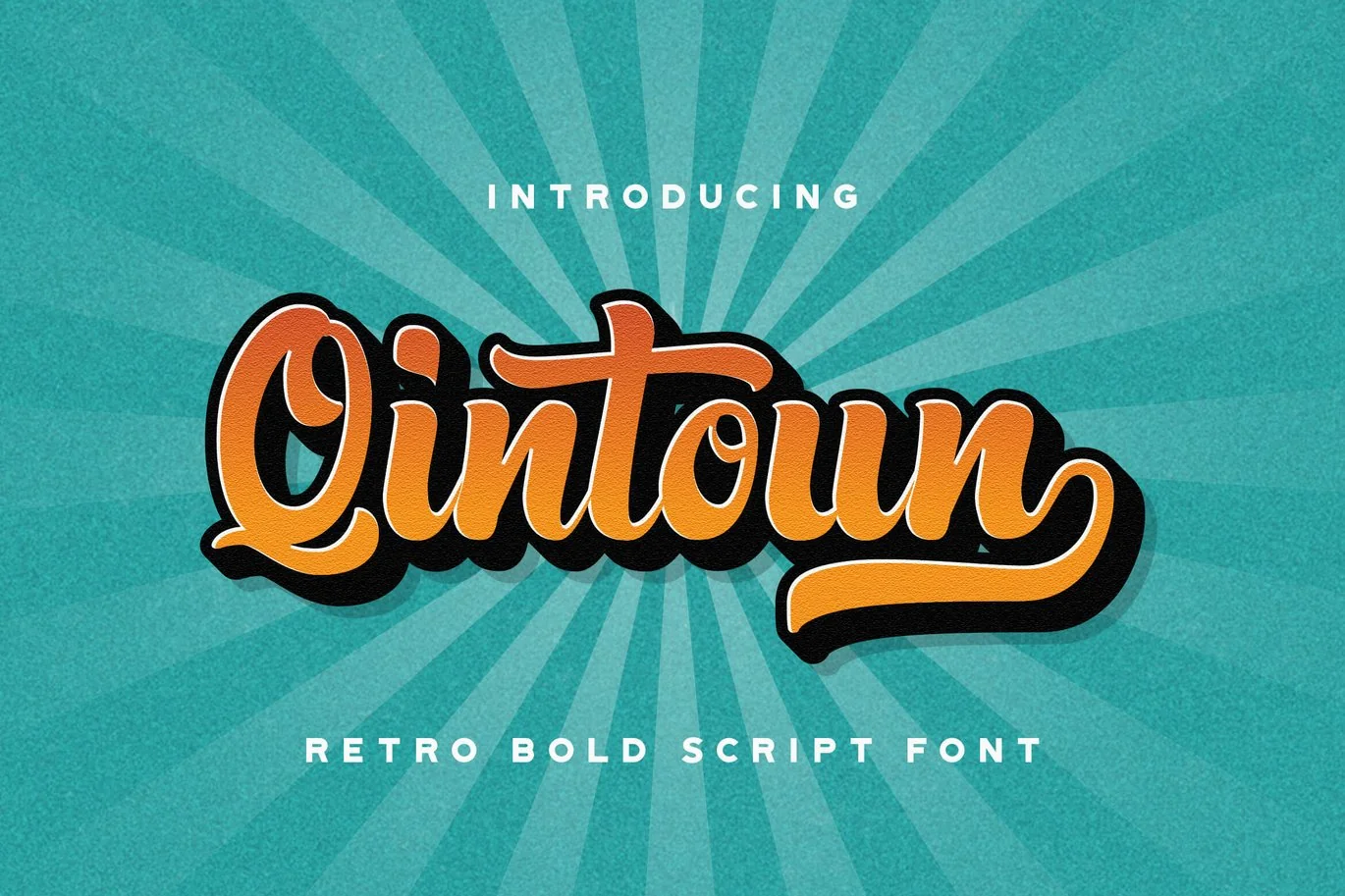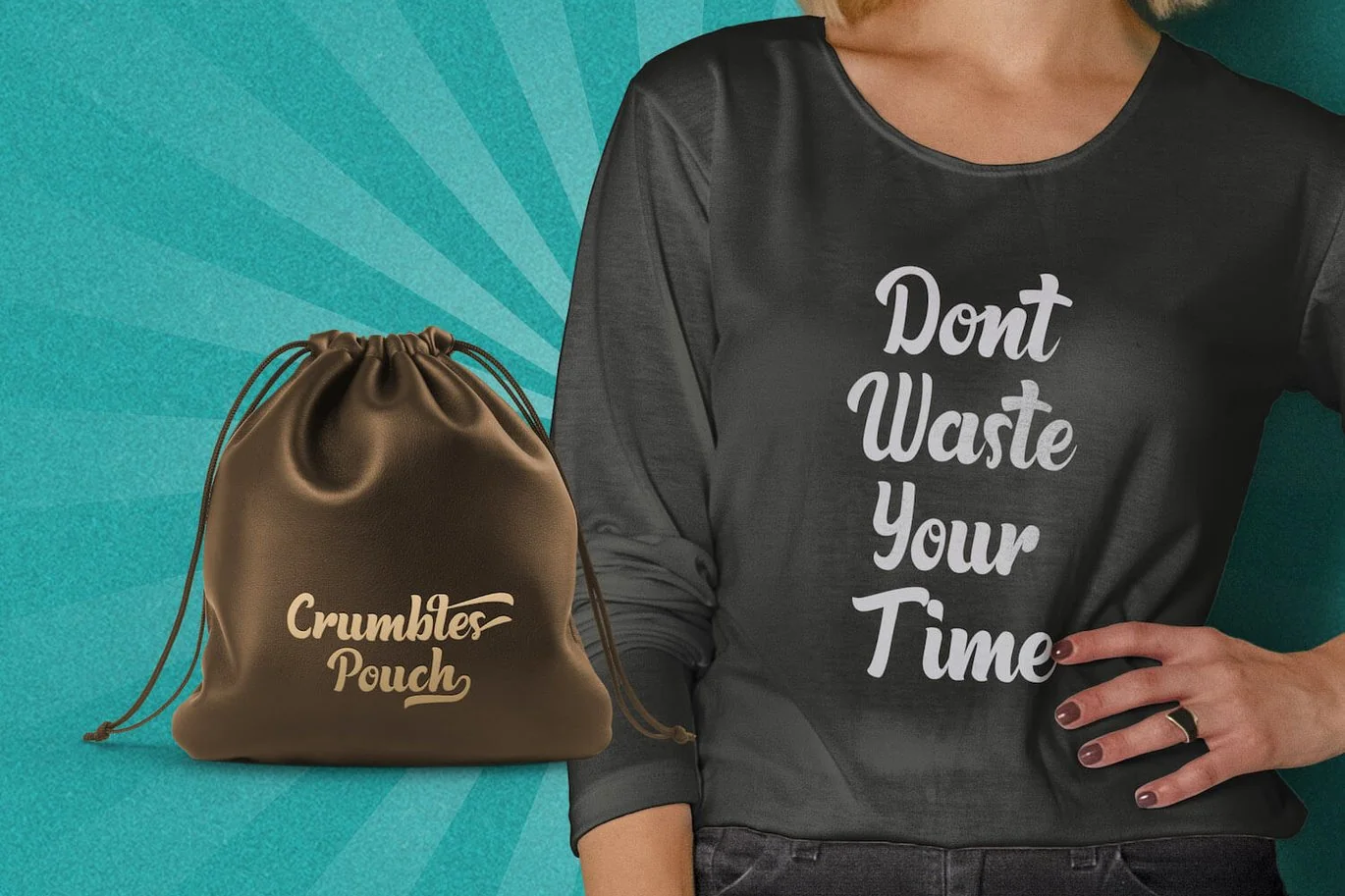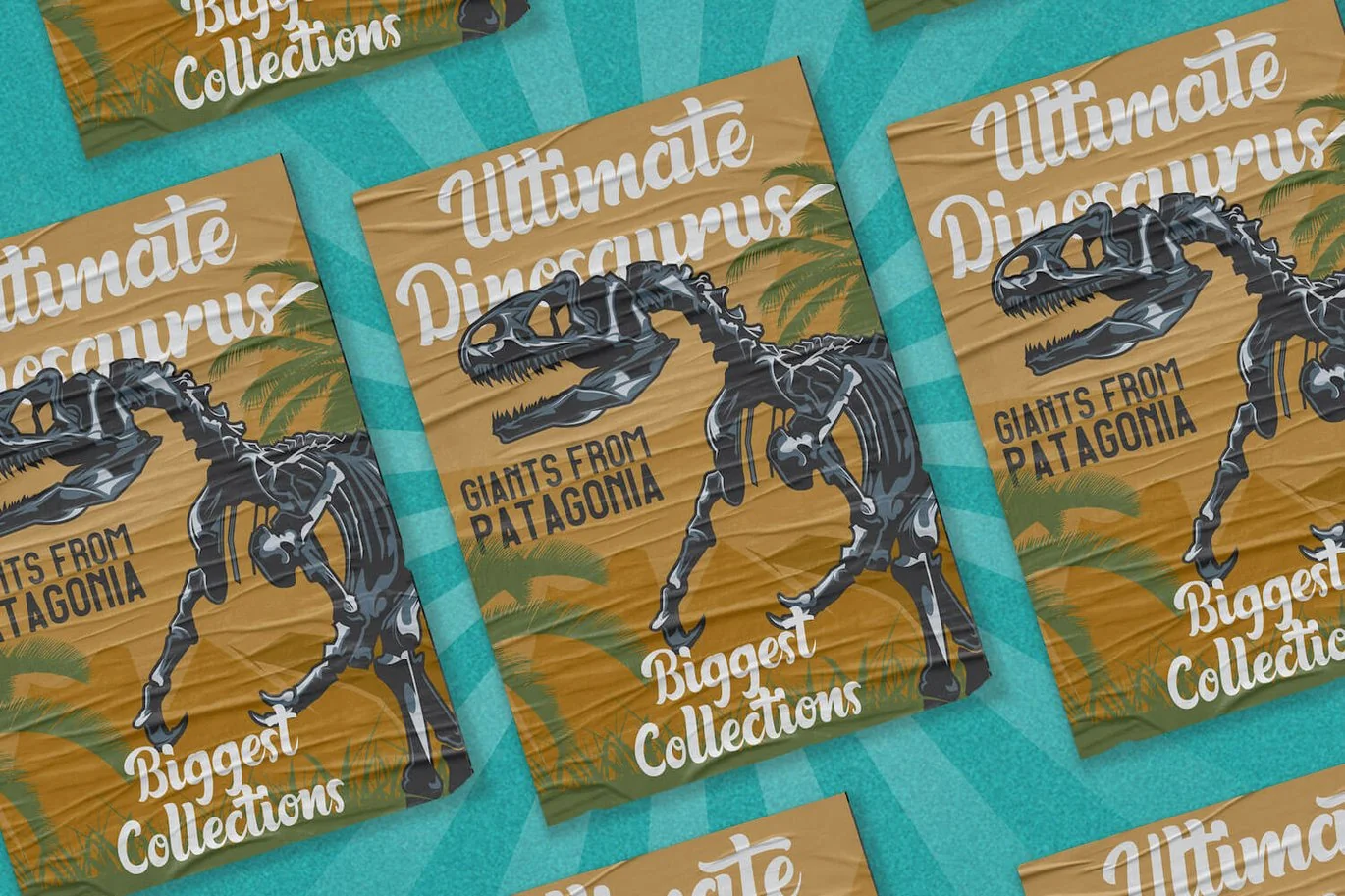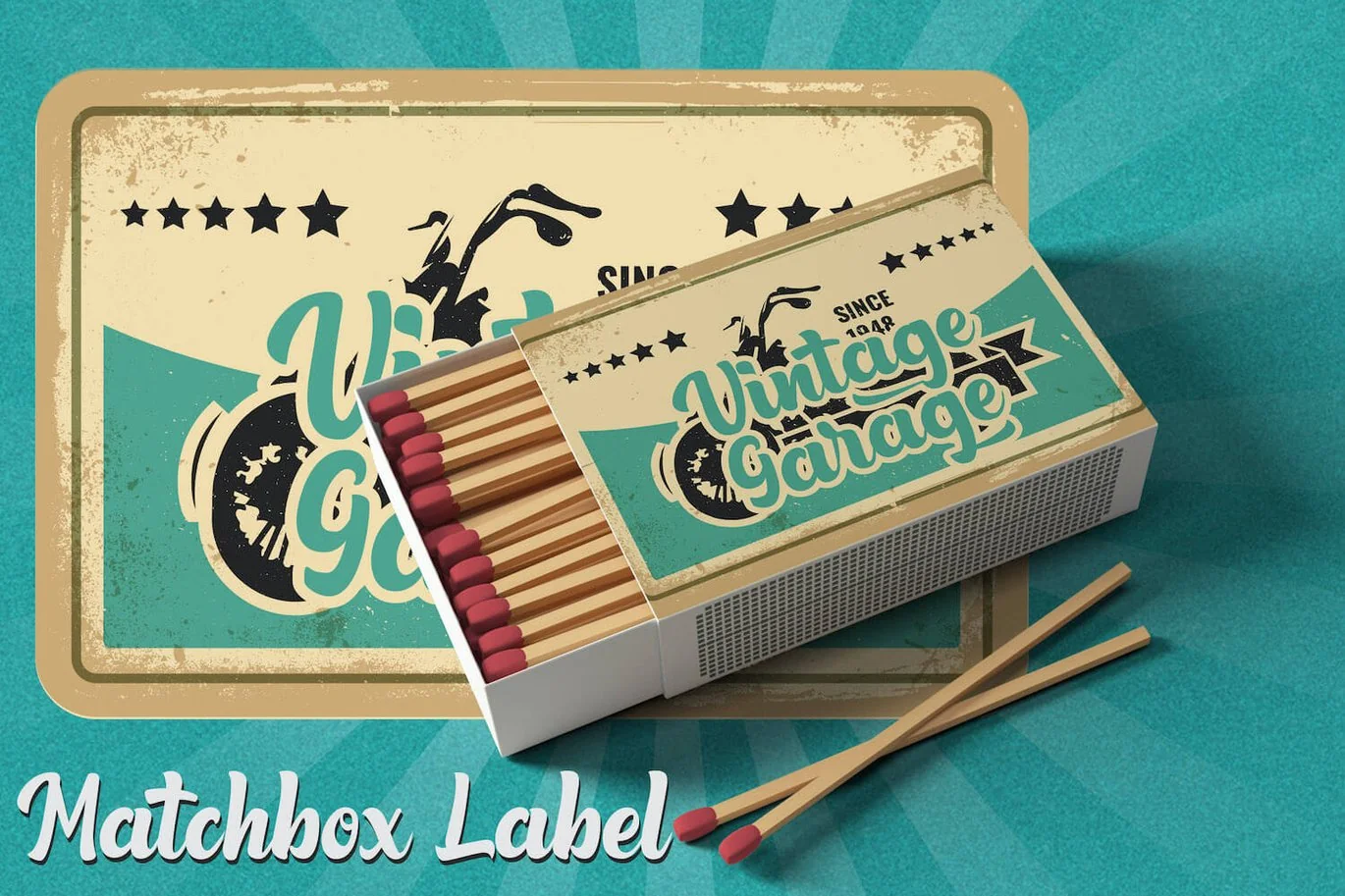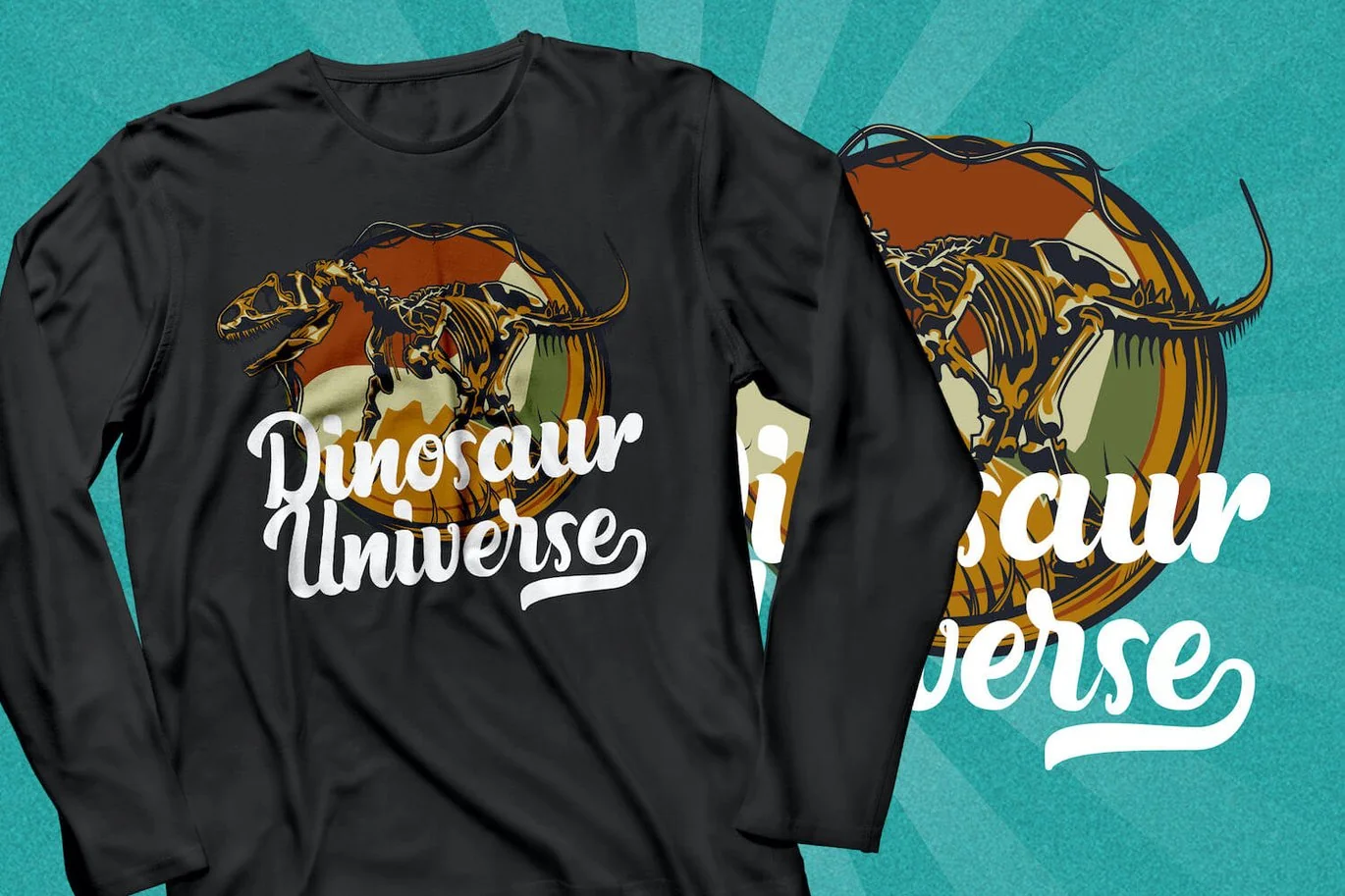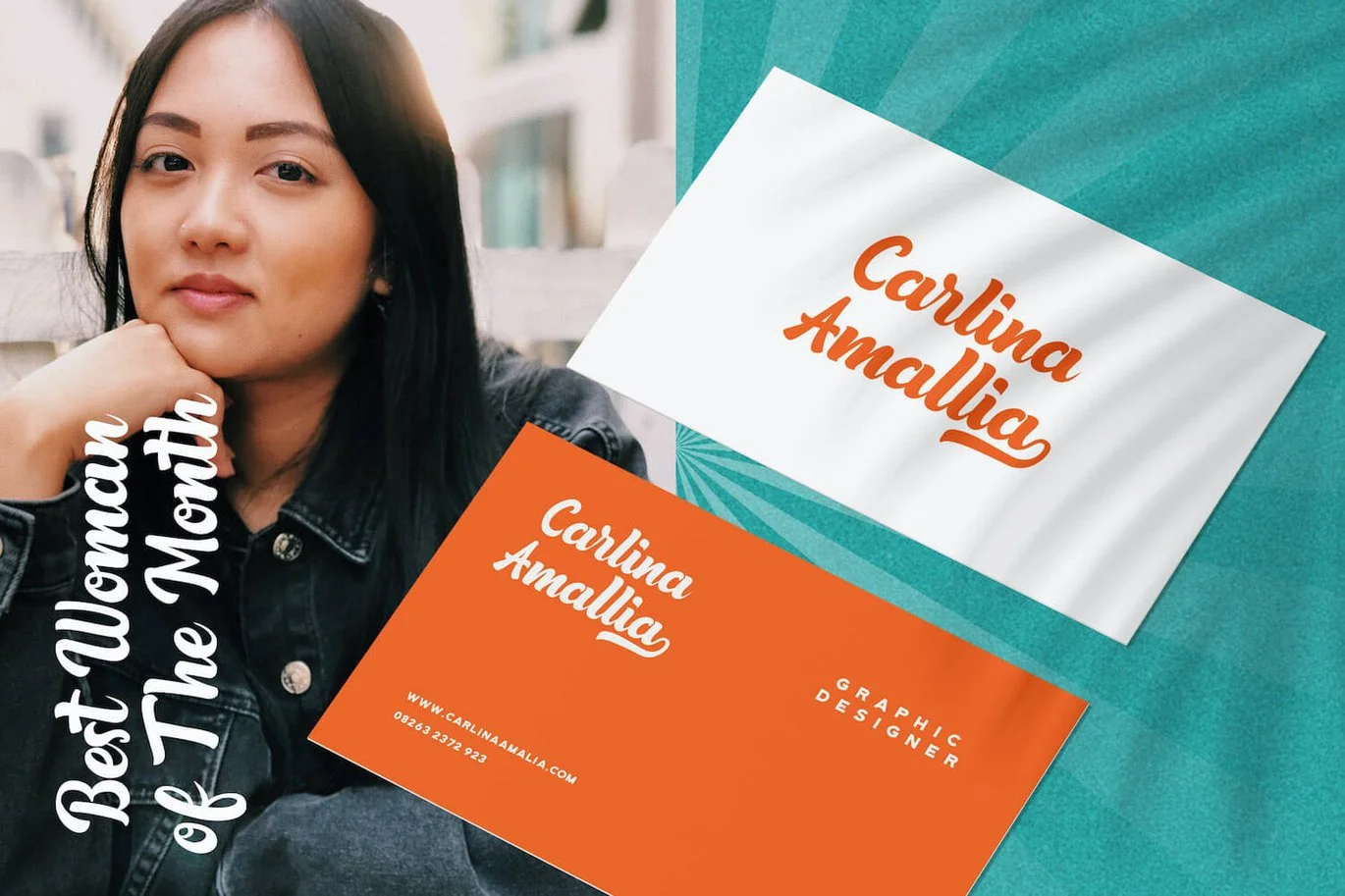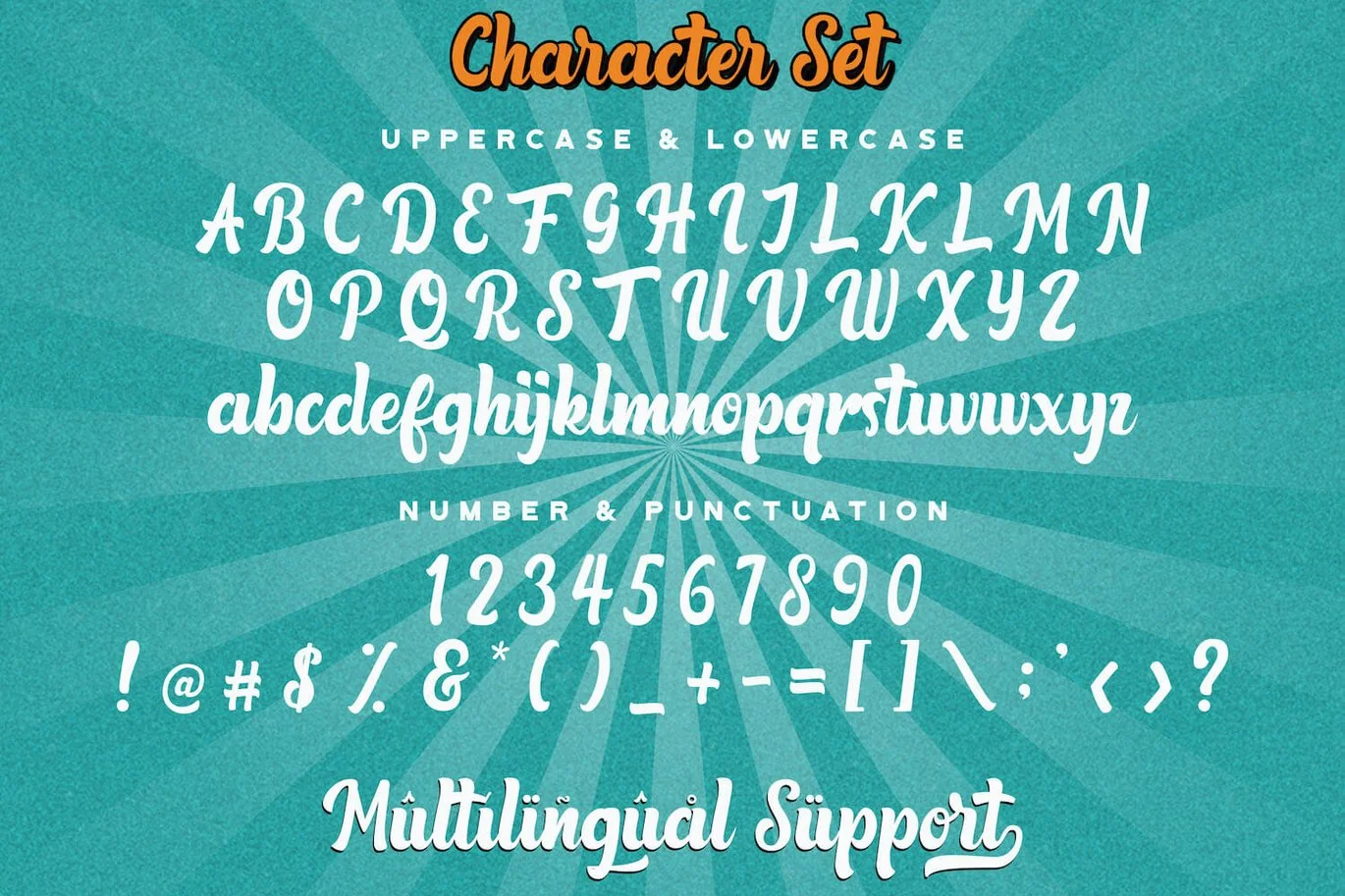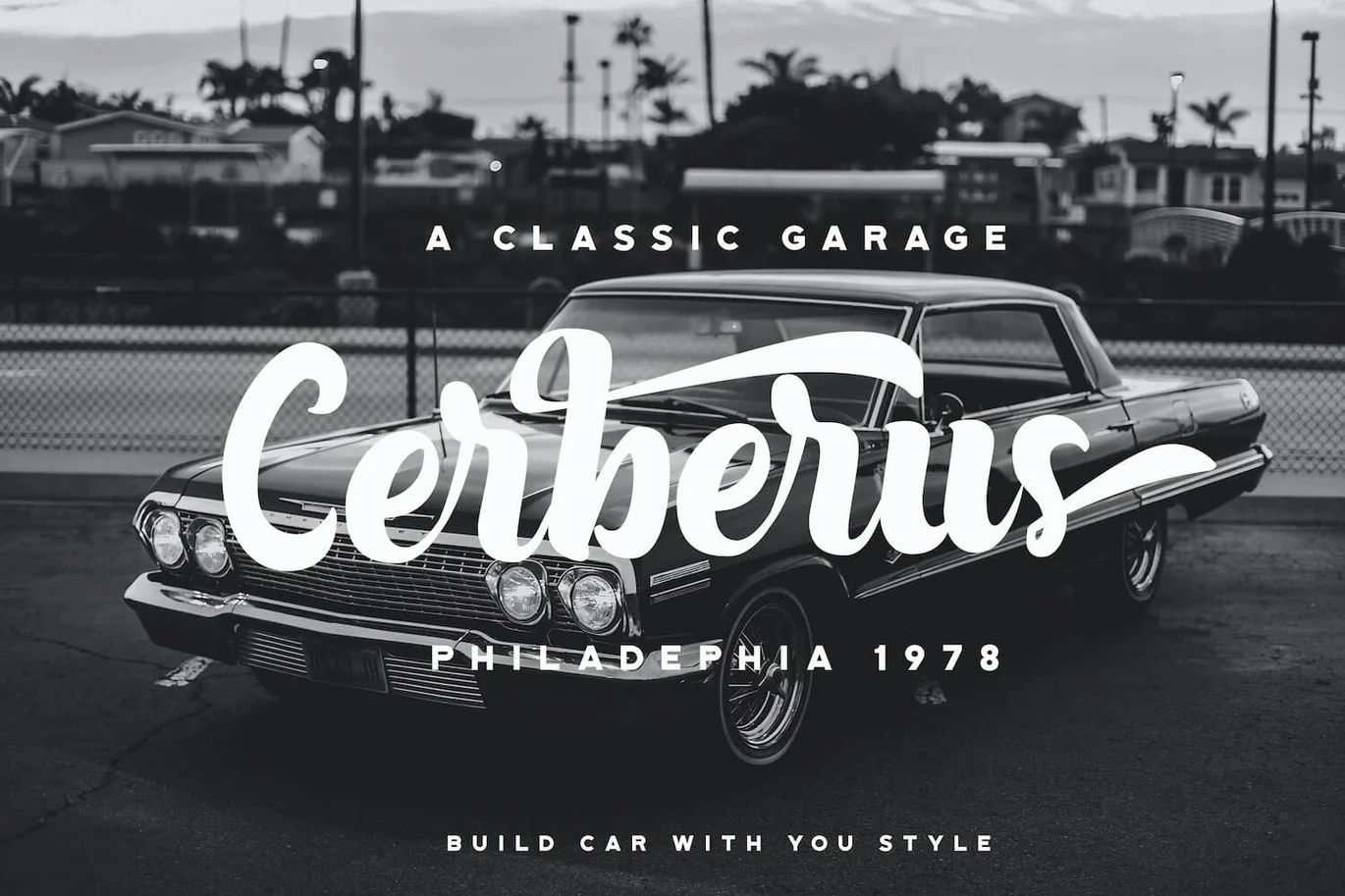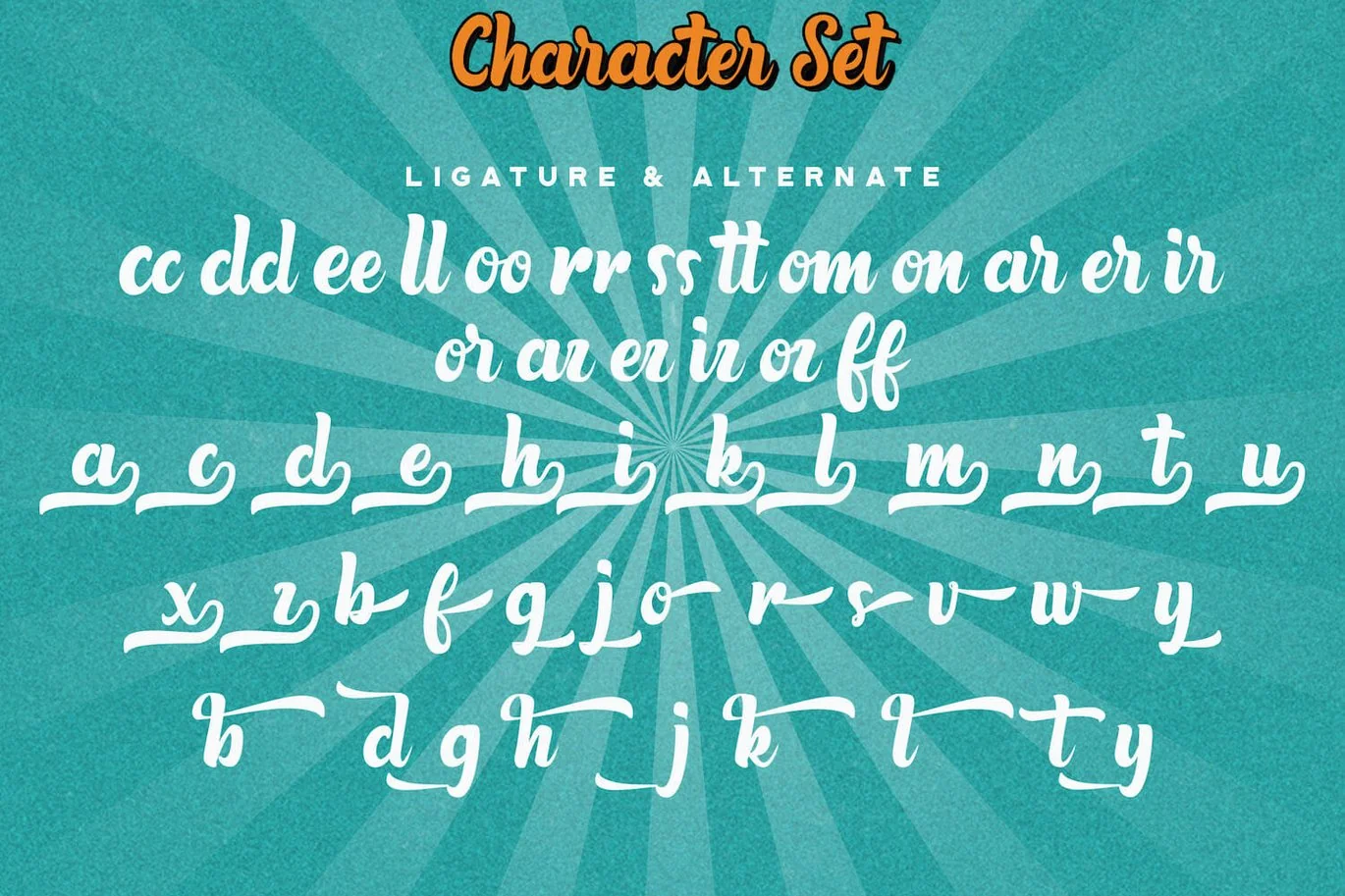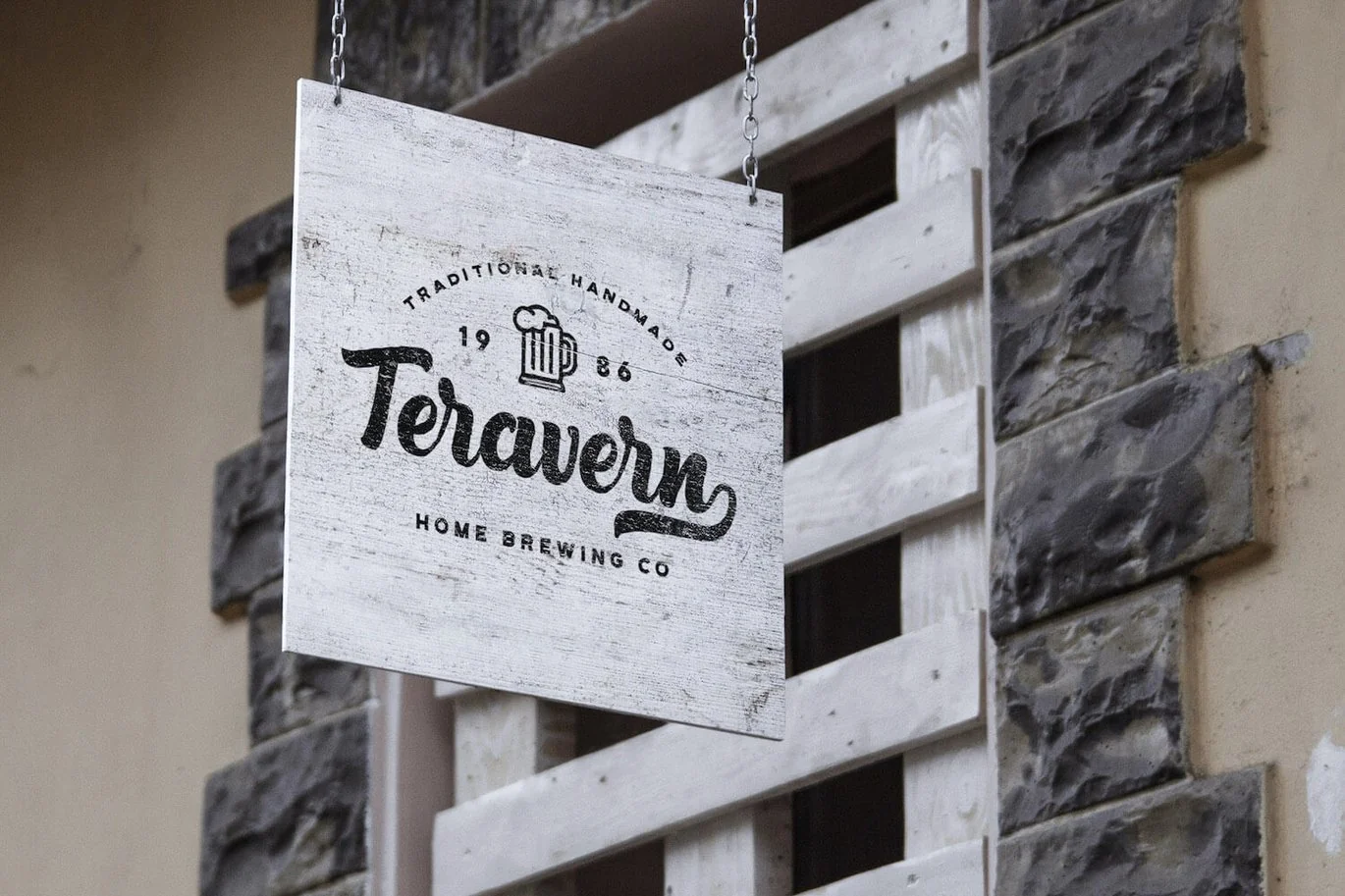
Qintoun – Retro Bold Script Font
Introducing Qintoun – Retro Bold Script Font
Qintoun is a strong and bold script font. It is curved, rounded, and has an unique vintage style, that is perfect for branding. Add it to your most creative ideas and notice how it makes them come alive!